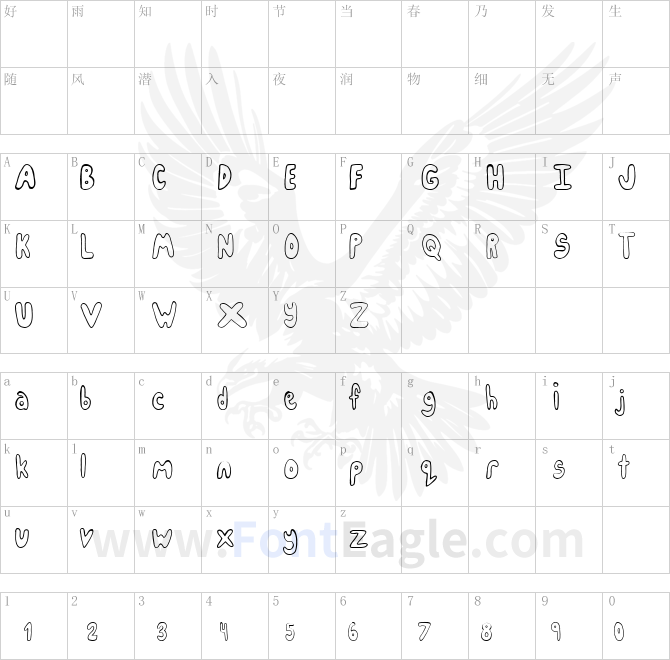
- Font name:IceCreamParty
- Font Subfamily ID:IceCreamParty:Version 1.00
- Font Full Name:IceCreamParty
- Font Version:Version 1.00 February 27, 2012, initial release
- Postscript:IceCreamParty